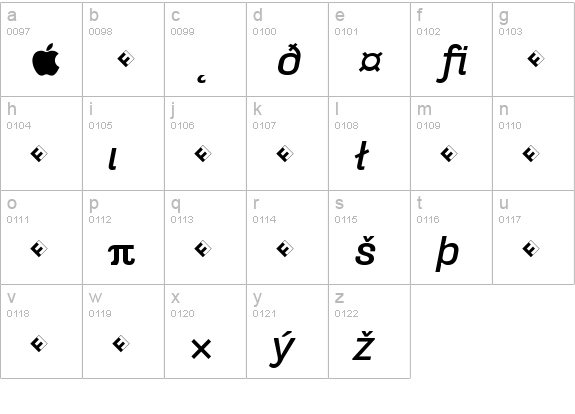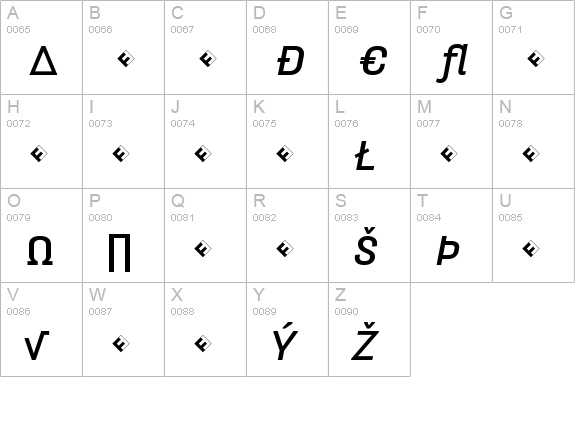
HydraText-BoldItalicExpert is a visually striking and dynamic font that exudes confidence and style. Its bold and italic design adds a touch of elegance and sophistication to any project, making it perfect for headings, posters, and logos. The expertly crafted letterforms of HydraText-BoldItalicExpert are designed to make a statement and capture the attention of viewers. What sets HydraText-BoldItalicExpert apart is not only its striking appearance but also its versatility. Whether you're looking to create a modern website, a sleek brochure, or a professional presentation, this font has you covered. Its unique style and bold presence will make your text stand out and leave a lasting impression on your audience. And the best part? HydraText-BoldItalicExpert is available for free download at FontsMarket.com. This means you can easily access this stunning font and use it in your projects without any cost. So why wait? Add HydraText-BoldItalicExpert to your font collection today and elevate your designs to the next level.